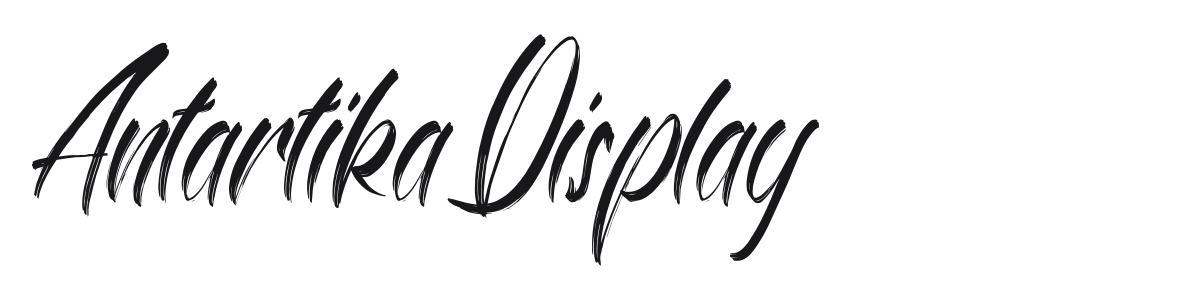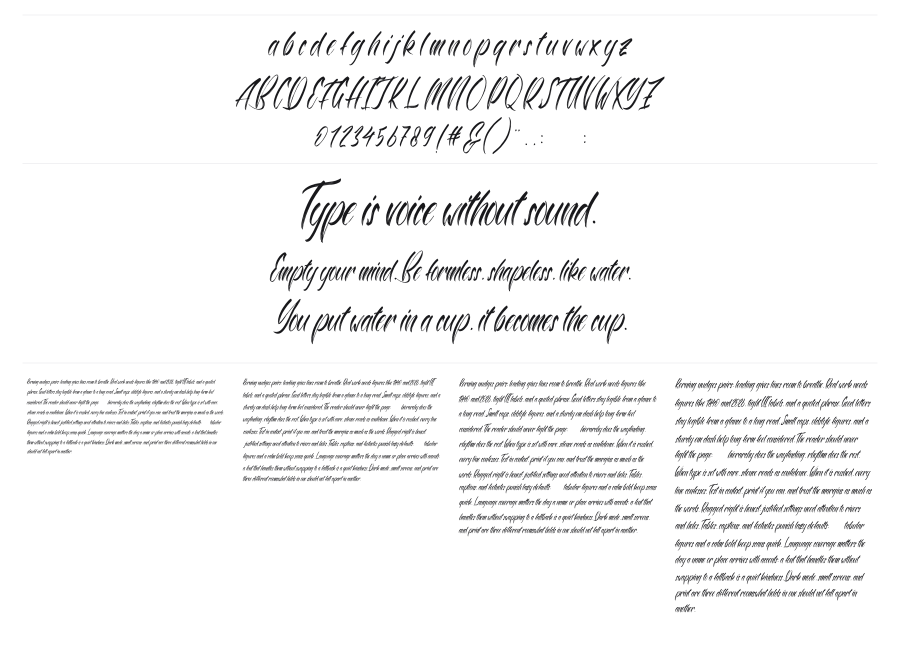
Antartika Display
Antartika Display is a raw, high-energy brush script with dramatic stroke contrast and rough bristle textures that put the tool marks front and center. The steep italic slant and wild, ink-heavy strokes give it an almost aggressive forward momentum. Strong in headlines, posters, and any branding that needs attitude.